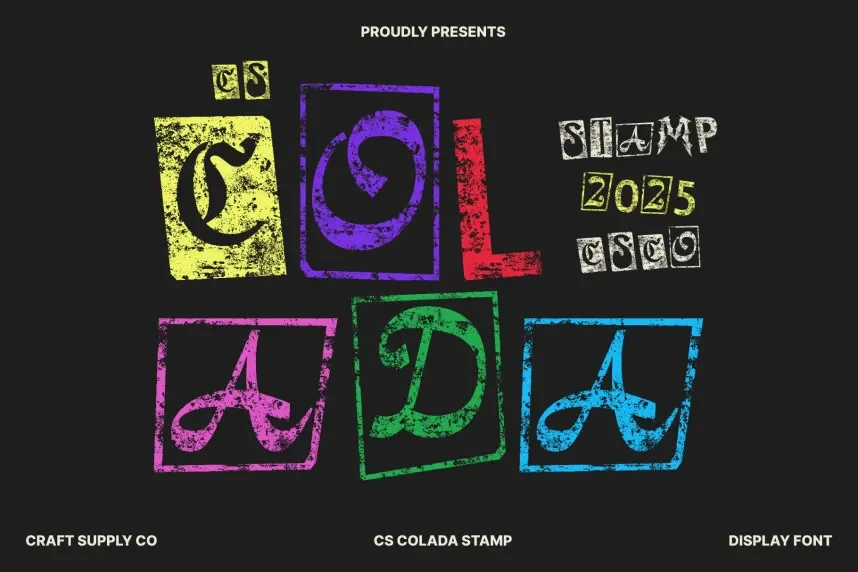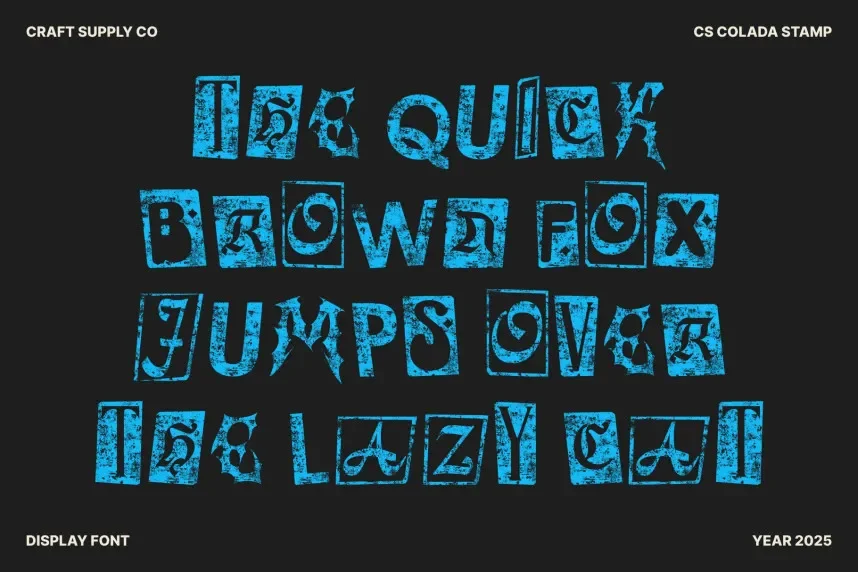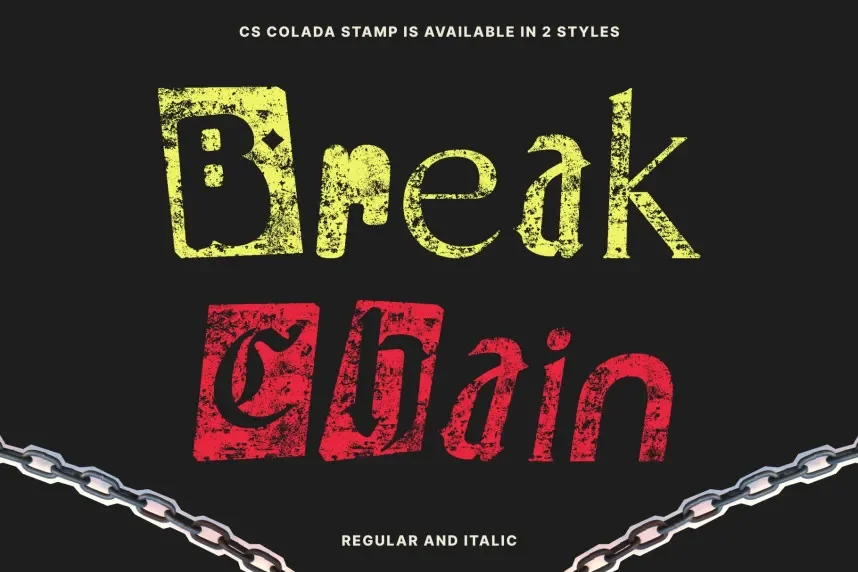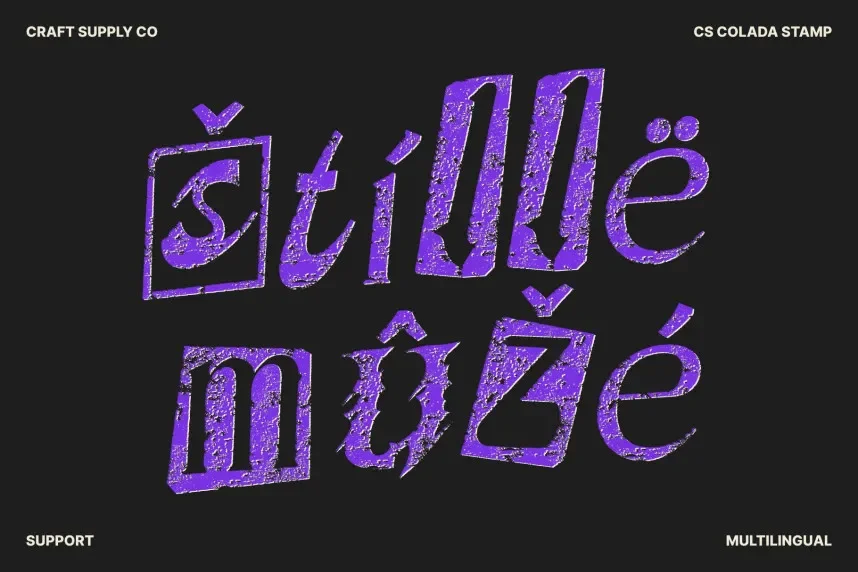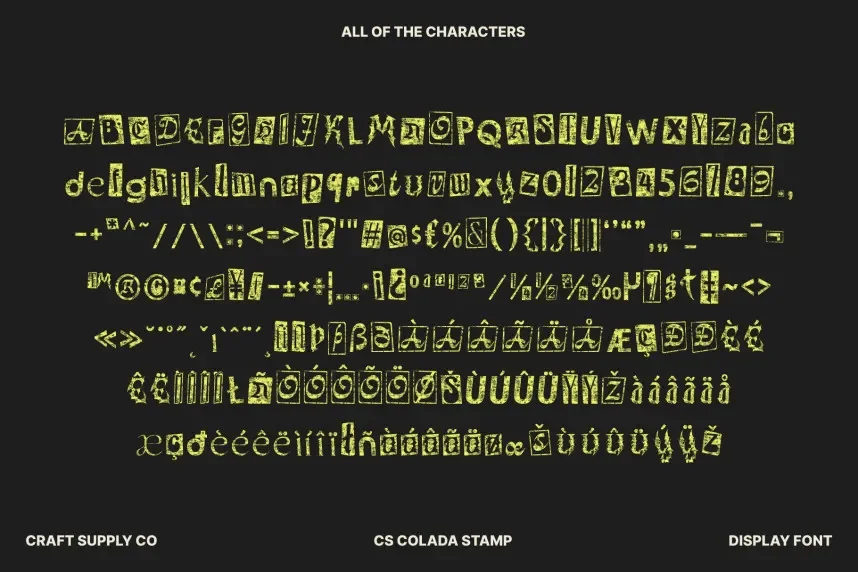
CS Colada Stamp Font is a bold, display font with a strong, block-like design. Its stamped edges give it a rugged yet professional feel, making it perfect for branding projects that require attention-grabbing titles and logos.